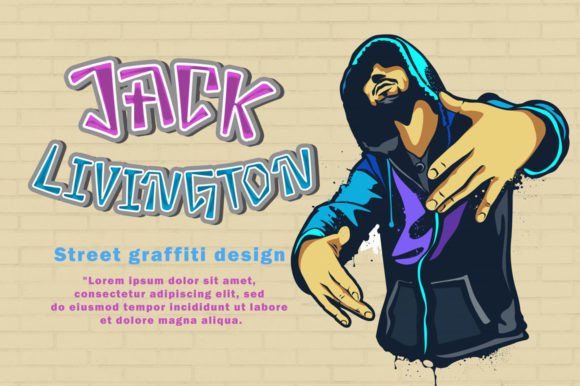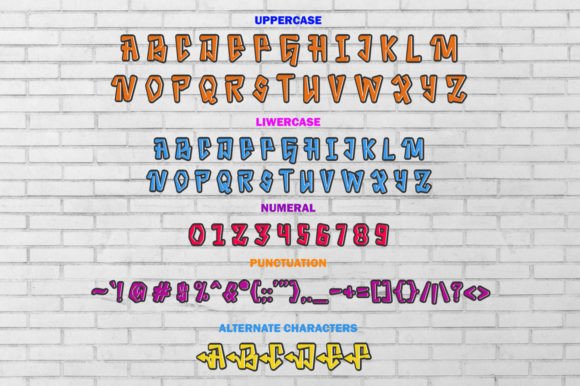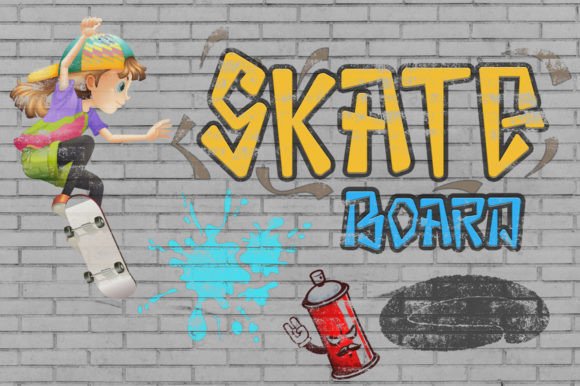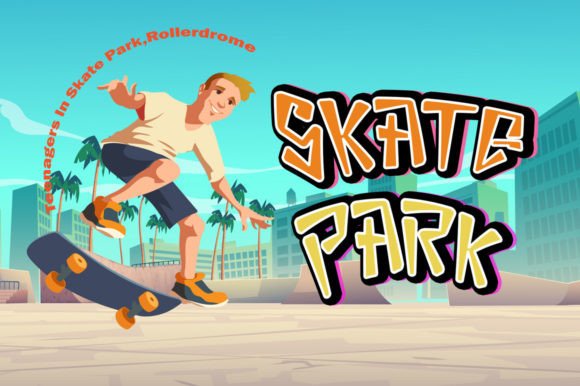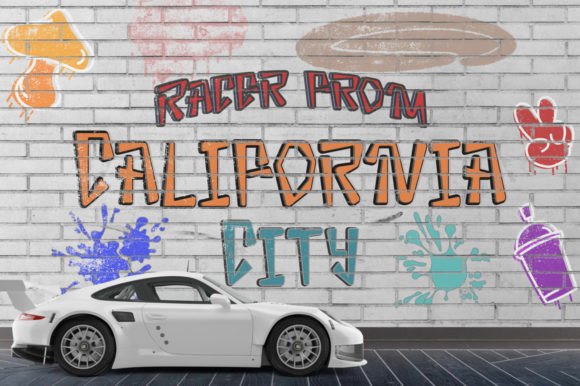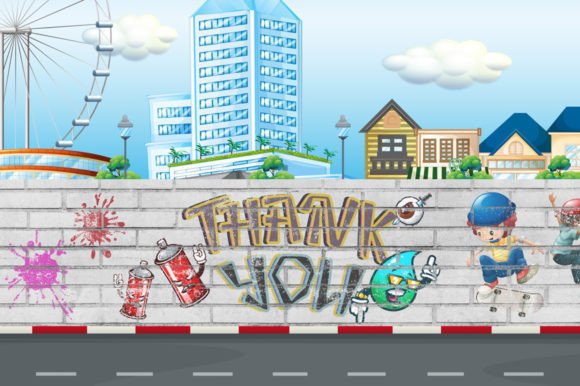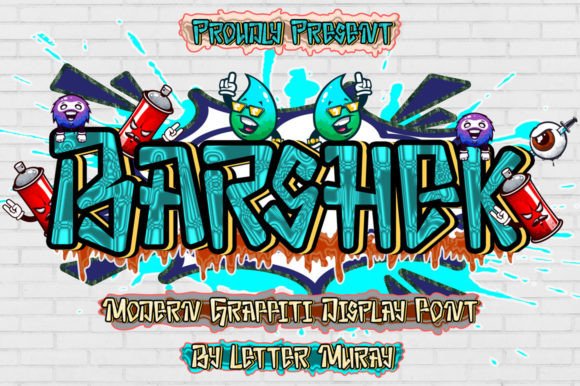
Introducing Barshek Font: The Ultimate Graffiti Style Display Font
Are you a designer or crafter looking for a font that can add a touch of coolness to your creations? Look no further than Barshek Font, a graffiti style display font that’s perfect for making a statement. Whether you’re working on a branding project, a flyer, or a social media post, Barshek Font is a great asset to have in your font library.
What Makes Barshek Font So Special?
Barshek Font is a unique and stylish font that’s designed to add a touch of edginess to your designs. Its graffiti style gives it a cool and laid-back vibe that’s perfect for a variety of projects. The font is highly versatile and can be used for a range of topics, from music and art to fashion and lifestyle.
Key Features of Barshek Font
• Graffiti Style: Barshek Font features a distinctive graffiti style that’s perfect for making a statement.
• Display Font: This font is designed specifically for display purposes, making it perfect for headlines, titles, and other attention-grabbing elements.
• Cool and Edgy: Barshek Font has a cool and edgy vibe that’s perfect for adding a touch of personality to your designs.
• Highly Versatile: This font can be used for a range of topics and projects, making it a great addition to your font library.
How to Use Barshek Font in Your Designs
Barshek Font is easy to use and can be incorporated into your designs in a variety of ways. Here are a few ideas to get you started:
• Headlines and Titles: Use Barshek Font to create eye-catching headlines and titles that grab attention.
• Logos and Branding: This font is perfect for creating logos and branding elements that need to make a statement.
• Flyers and Posters: Add a touch of coolness to your flyers and posters with Barshek Font.
• Social Media Graphics: Use Barshek Font to create social media graphics that stand out from the crowd.
Why Designers and Crafters Love Barshek Font
Barshek Font has quickly become a favorite among designers and crafters, and for good reason. Here are a few reasons why:
• Unique Style: Barshek Font offers a unique and stylish alternative to more traditional fonts.
• Easily Readable: Despite its graffiti style, Barshek Font is surprisingly easy to read, making it perfect for display purposes.
• High-Quality Design: This font is designed to high standards, ensuring that it looks great in any design.
Tips for Getting the Most Out of Barshek Font
To get the most out of Barshek Font, here are a few tips to keep in mind:
• Use it Sparingly: Because Barshek Font is a display font, it’s best to use it sparingly to avoid overwhelming your design.
• Experiment with Colors: Don’t be afraid to experiment with different colors to find the perfect combination for your design.
• Pair it with Other Fonts: Barshek Font pairs well with a range of other fonts, so don’t be afraid to get creative.
In conclusion, Barshek Font is a cool graffiti style display font that’s perfect for designers and crafters looking to add a touch of personality to their creations. With its unique style, high-quality design, and versatility, Barshek Font is a great asset to have in your font library. Whether you’re working on a branding project, a flyer, or a social media post, Barshek Font is sure to make a statement.